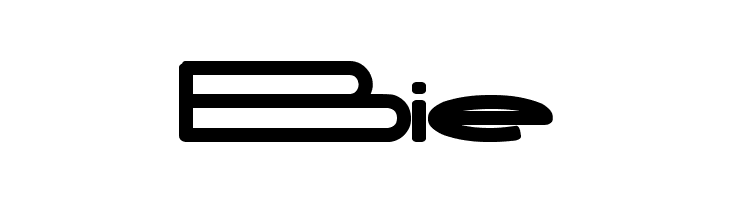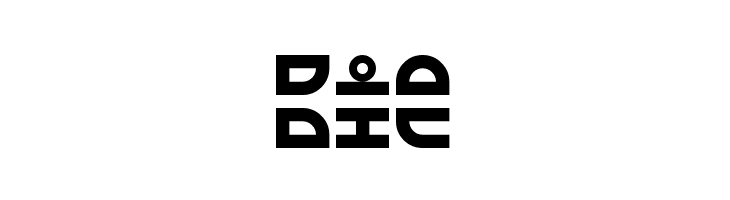
A modern, semi-bold italic font with a sleek and dynamic style.
A sleek, modern font with thin, elegant strokes and a minimalistic design.
A sleek, thin, and italicized font with a modern and elegant style.
A bold, rounded font with a playful, retro style.
A bold, vintage-inspired font with a modern twist, perfect for impactful designs.
A playful, bubble-like font with thick outlines and a whimsical style.
A bold, distressed font with jagged edges and a chaotic, energetic style.
A bold, distressed font with a chaotic, grunge style.
A playful, bold, and bubbly font with a whimsical, cartoonish style.
A playful, cloud-like font with bold, rounded characters and a whimsical style.
A bold, dramatic Blackletter-style font with sharp serifs and historical elegance.
A bold, medieval-inspired font with angular lines and intricate serifs.
A bold, italicized blackletter-inspired font with dramatic curves and angular lines.
A bold, italic font with sharp, angular strokes and a dynamic style.
An abstract, angular font with a dynamic and edgy design.
A bold slab serif font with strong, block-like serifs and clear readability.
A modern, light slab serif font with a clean and elegant design.
A modern slab serif font with strong, block-like serifs and a clean, professional appearance.
A bold, modern font with a playful, stencil-like design.
A bold, geometric font with a modern, digital aesthetic.
A bold, distressed font with a grunge texture and vintage appeal.
A bold, distressed font with a rugged, grunge texture and a clean alternative.
A hand-drawn, edgy font with angular, intersecting lines and a sketch-like appearance.
A modern, pixelated font composed of small dots forming each character.
A bold, textured font with a distressed, grunge aesthetic.